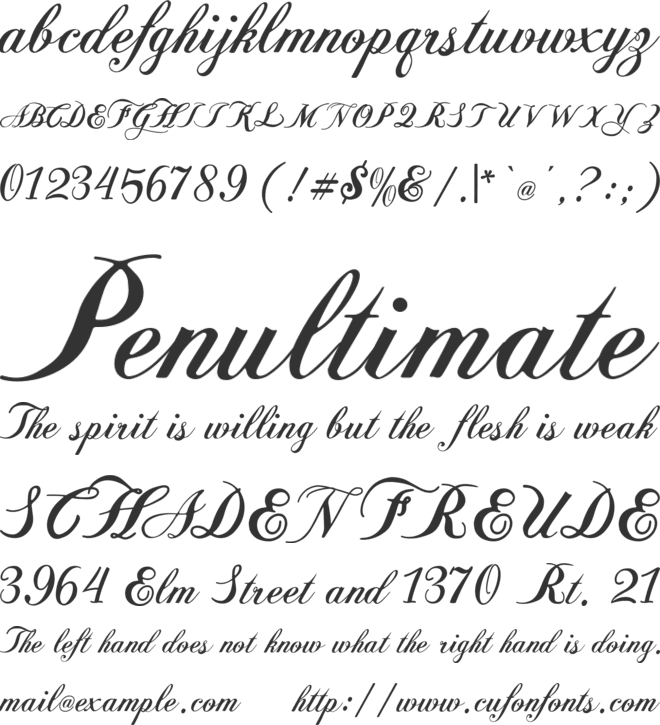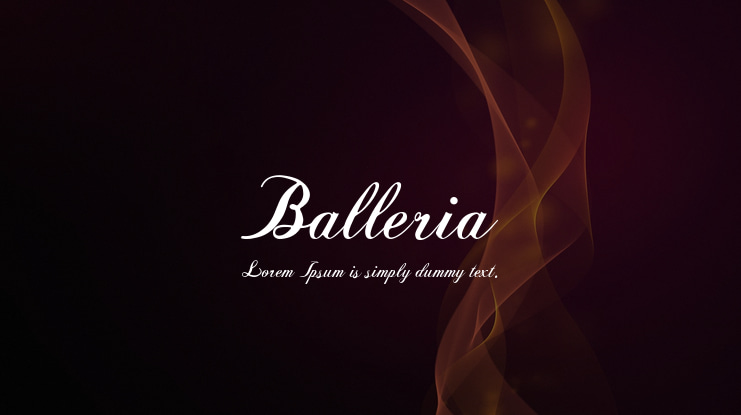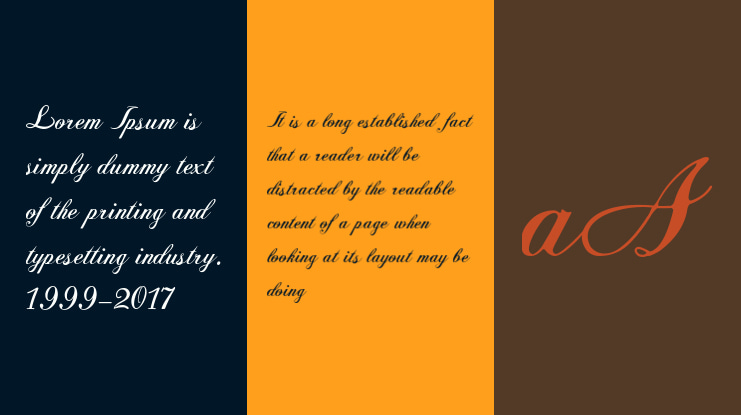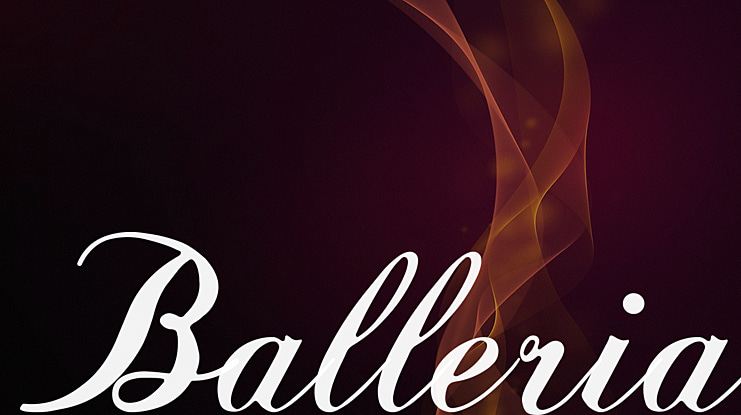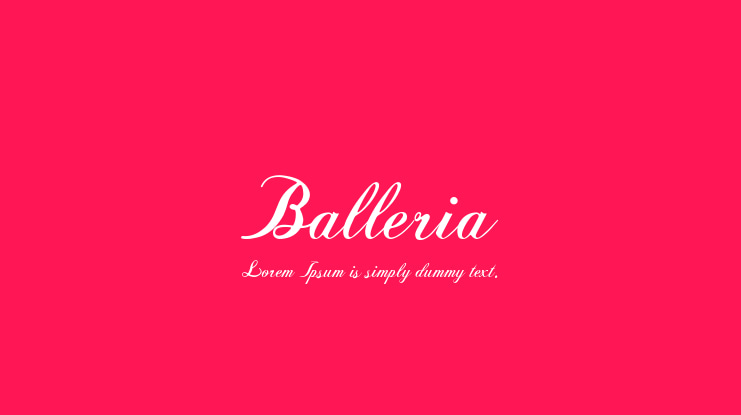
Balleria Font
Balleria is a classy and lovely script font. It has a elegant style and is perfect for creating original designs.
This lovely script font is really great for a logo, clothing, quotes, headings, wedding invitations, posters, and many others.
Balleria created By typefactory. 2020